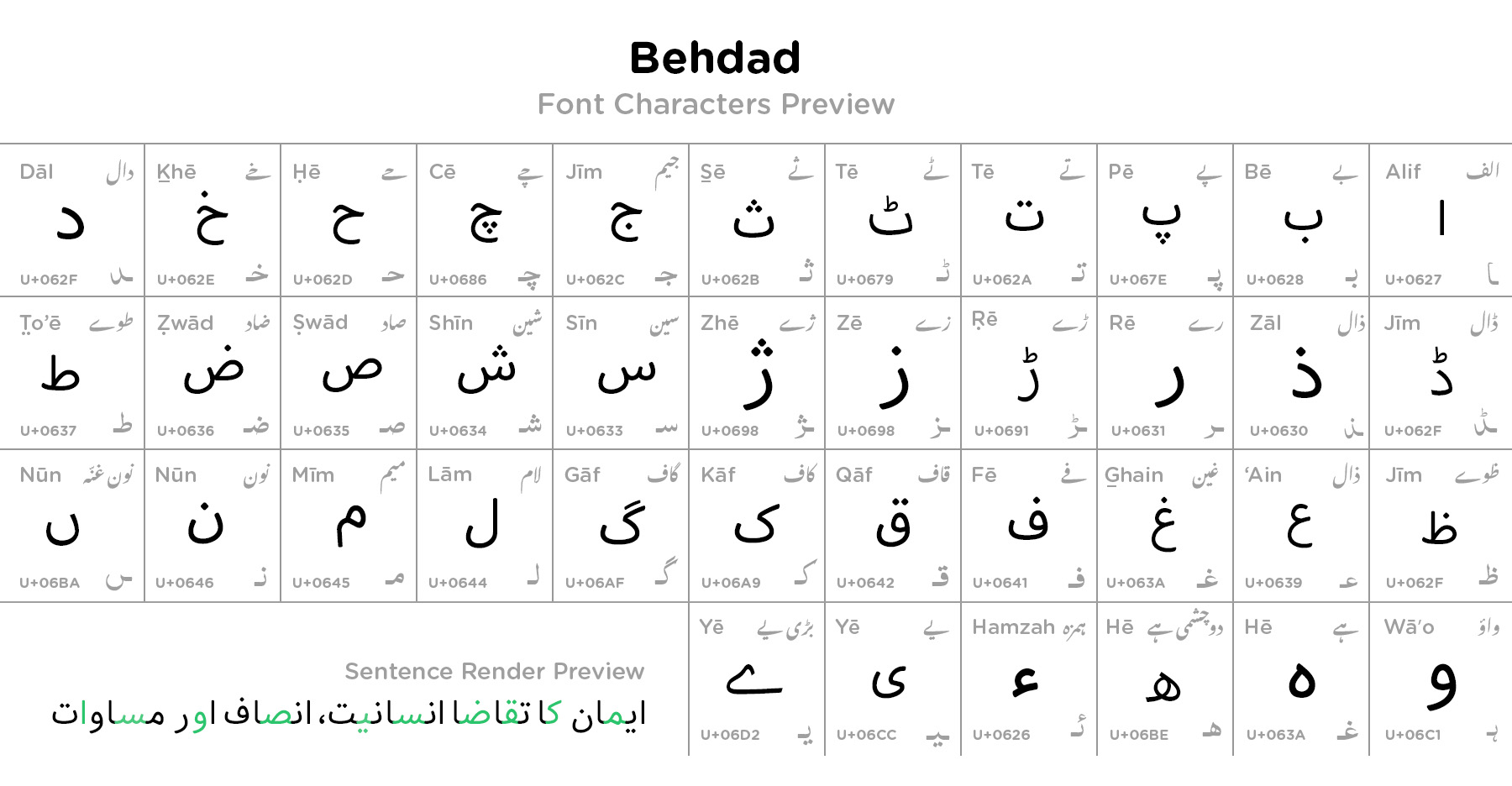
Behdad is an Arabic and Persian font that has smooth, modern, and slightly rounded appearance. It has clear and readable structure that makes it suitable for different types of digital and print content. Behdad is a monoline font and the character spacing between it is well adjusted. The letters are well-balanced and have glyph count of 450. Mohammad Saleh Souzanchi is the designer of this font. All the curves are gentle and have a slight boldness. This font maintains classic Arabic calligraphy with a modern touch. It has a consistent stroke width. This means there are no contrasts between thick and thin parts as in other calligraphic fonts. If we talk about its usability, it is ideal for Arabic websites, blogs, and online articles. You can also use it in banners, logos, and promotional materials where a modern Arabic font is required. Due to its readability, this font can be used in app interfaces, menus, headlines, captions, and buttons.
Behdad
| Font Family | Behdad |
| Font Developer | Mohammad Saleh Souzanchi |